- The modern floral bundle of your dreams has arrived! Introducing the Floriana Creator Studio ????????? A HUGE pack of fonts, graphics and branding tools worth over $200 for only $35. Over 1000 elements included!
- For the lovers of florals and feminine designs, the studio provides you with endless possibilities to create breathtaking logos, patterns, prints and more for your store, blog, brand or clients. It’s a complete branding experience!
- Incorporate pretty flowers and a soft color palette into your social media, mixing in minimalist floral designs with your own photography. Make a statement with deeper hues of dusty rose and faded black with a metallic finish to amplify your design.
- You have a brand new collection of fonts which work wonderfully in artistic logos or to add a handwritten touch to Instagram quotes. Including pretty scripts, cute handwritten capitals and a sophisticated, dramatic serif.
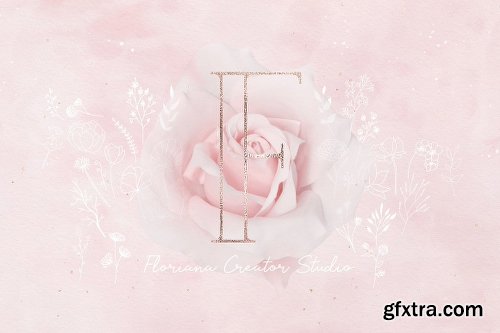
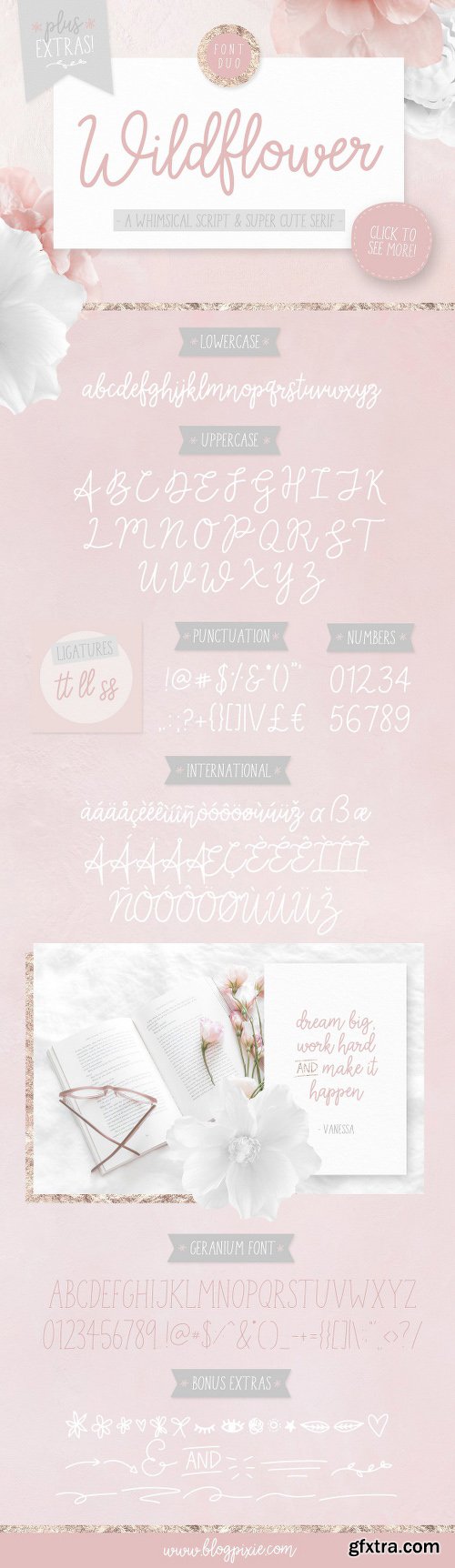
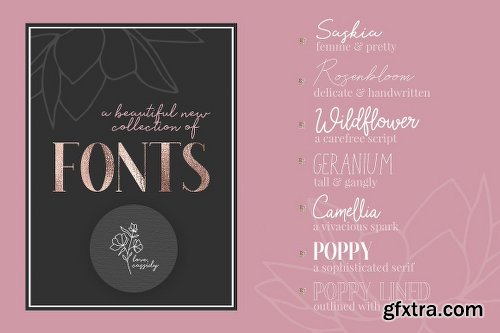
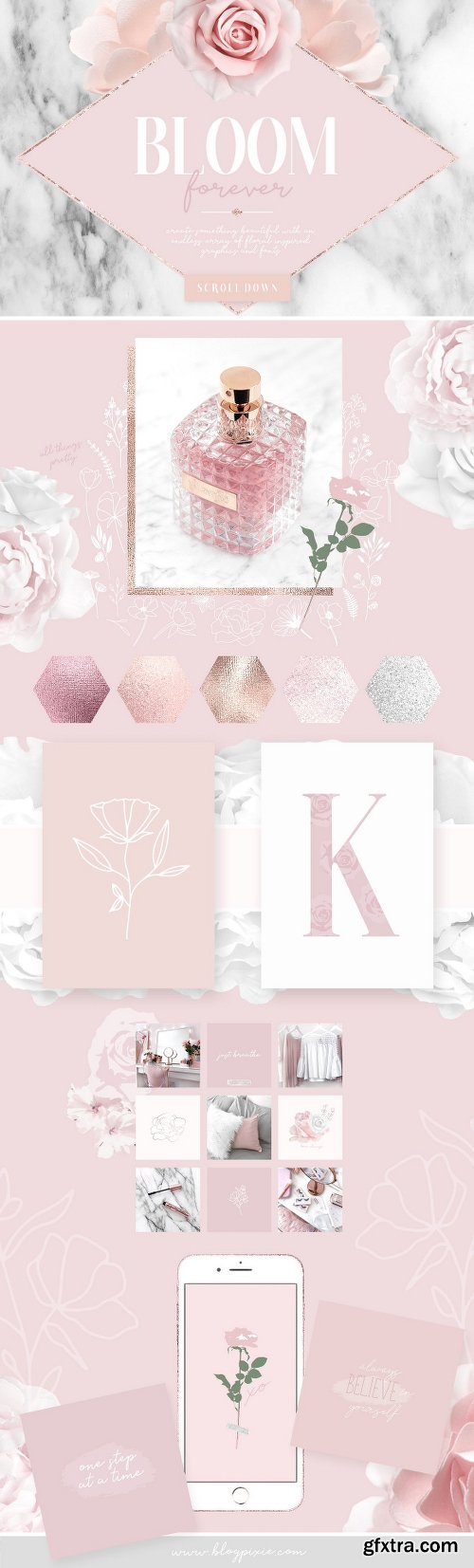
- Layer floral illustrations over a serif letter of your choice to create an effortless, admirable new logo. Choose between floral lineart or colored floral vectors. Decorate photos with beautiful flowers as a border around the outside, create art prints, cards and stunning invitations.
- You have a sparkling selection of metallic textures, gorgeous floral patterns and clipart images that will make designing something new a breeze. Plus a huge product in itself - the Floral Dream Designer Toolkit - including a tonne of colorful floral elements.
- Achieve so many wonderful things in the years to come with the Floriana Creator Studio. ????
- ???? F O N T S ????
- 10 brand new fonts, designed to create exquisite logos, stationery, artwork, signatures, typography and more!
- Saskia OTF - Feminine and ultra pretty, Saskia is that hand-lettered font you need for Insta quotes and little handwritten bits and pieces. Including all characters, numbers, punctuation plus international characters.
- Saskia Extras OTF - Type from lowercase a to z in the Saskia Extras font for little illustrations.
- Wildflower OTF - A carefree script, bouncing with joy. Wildflower flourishes with all characters, numbers, punctuation plus international characters.
- Wildflower Extras OTF - Type from lowercase a to z in the Wildflower Extras font for little illustrations.
- Geranium OTF - Tall & gangly, Geranium is the cute handwritten pair to any script font, especially Wildflower! Including all uppercase characters with numbers and punctuation.
- Poppy OTF - A sophisticated serif in all uppercase characters, Poppy is dramatic and really makes a stylish statement. All uppercase characters plus numbers and punctuation.
- Poppy Lined OTF - The Poppy uppercase letters have been transformed into a lined alphabet, ready for use in logos and design. Uppercase characters only.
- Rosenbloom OTF - Delicate & handwritten, Rosenbloom is flowing and dreamy in style. With uppercase and lowercase characters, numbers and punctuation.
- Camellia OTF - A vivacious spark, Camellia is lively yet effortless in style with all uppercase and lowercase characters, numbers and punctuation.
- Camellia Extras OTF - Type from lowercase a to z in the Camellia Extras font for little illustrations.
- 3D FLOWER CLIPART - There are 80 stunning floral mock-up PNG images to incorporate a 3D floral effect into your design. Both real and faux flowers, photographed and cut out ready to layer over photography or to use as borders and wreaths.
- LUXURIOUS TEXTURES - There’s a collection of 9 new sparkling JPG textures, 3000px by 3000px. Add metallic goodness to anything you create.
- WREATH CLIPART - A wonderful set of 30 PNG wreaths, 2000px wide. A mixture of colors and pretty metallic finishes. Use as beautiful borders for your designs and layer them up for something extra special.
- FLORAL DREAM DESIGNER TOOLKIT - Want to create something with color? Find a huge mixture of over 250 vectorized flowers, leaves, wreaths, borders and shapes in both PNG clip art and a full AI file for Illustrator. Also includes 40 seamless patterns (JPG, PAT and AI swatches) and JPG concrete texture backgrounds in the same soft, muted color palette. Use these scandi-inspired pieces to create art prints, borders for invitations, logos or use as decorative elements.
- LOGO TEMPLATES - Need a selection of new logo templates for potential clients, or are you after a new logo for yourself? There are 30 floral logo PSD templates to choose from. Simply load one into Photoshop, add your brand name and a bit of color if needed and it’s good to go!